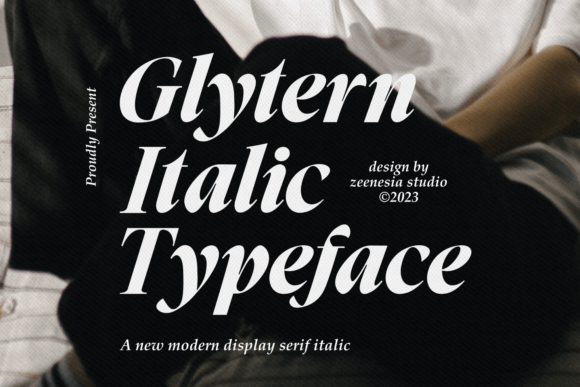
Dive into the realm of digital elegance with Glytern Font, a modern italic serif masterpiece crafted with meticulous precision by zeenesia. Experience the allure of timeless aesthetics intertwined with contemporary charm, as Glytern's graceful curves and sharp angles weave a symphony of visual delight.
Transport yourself to the world of striking headlines, captivating logos, and unforgettable branding, where Glytern Font reigns supreme. Its innate versatility effortlessly transforms designs, whether for editorial projects, web fonts, product packaging, or simply as a stylish overlay that breathes life into any background image.
Step into the spotlight with Glytern's captivating presence in large-scale applications. Its inherent readability and clarity command attention, ensuring your messages shine with unwavering brilliance. Unleash your creativity and let Glytern's timeless appeal elevate your designs to new heights.
Immerse yourself in a realm of endless possibilities, where Glytern Font becomes your trusted companion in crafting visual experiences that leave a lasting impression. Its elegant strokes inspire confidence, while its delicate details evoke a sense of sophistication that elevates your creations beyond the ordinary.
With Glytern Font, embark on a journey of visual artistry, where your imagination knows no bounds. Its versatility and timeless charm empower you to weave enchanting tales through compelling typography, leaving your audience spellbound. Embrace the allure of Glytern and unlock the gateway to design brilliance.